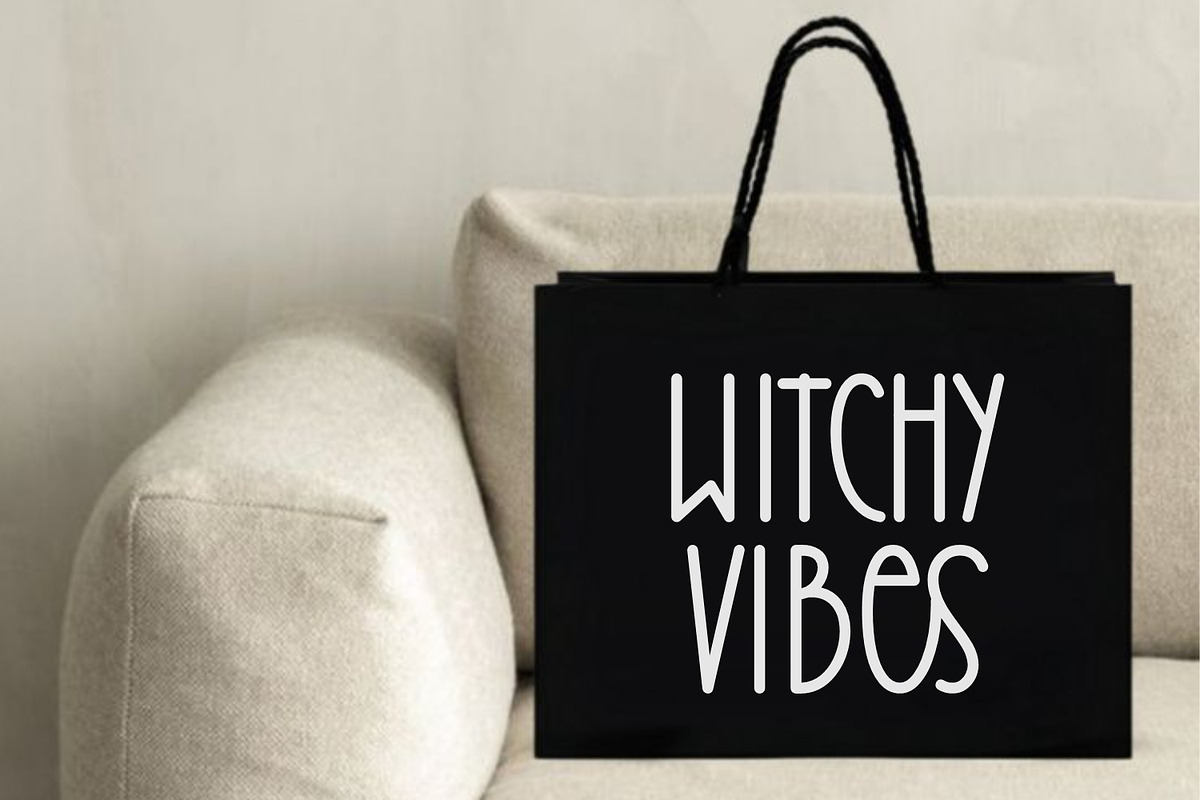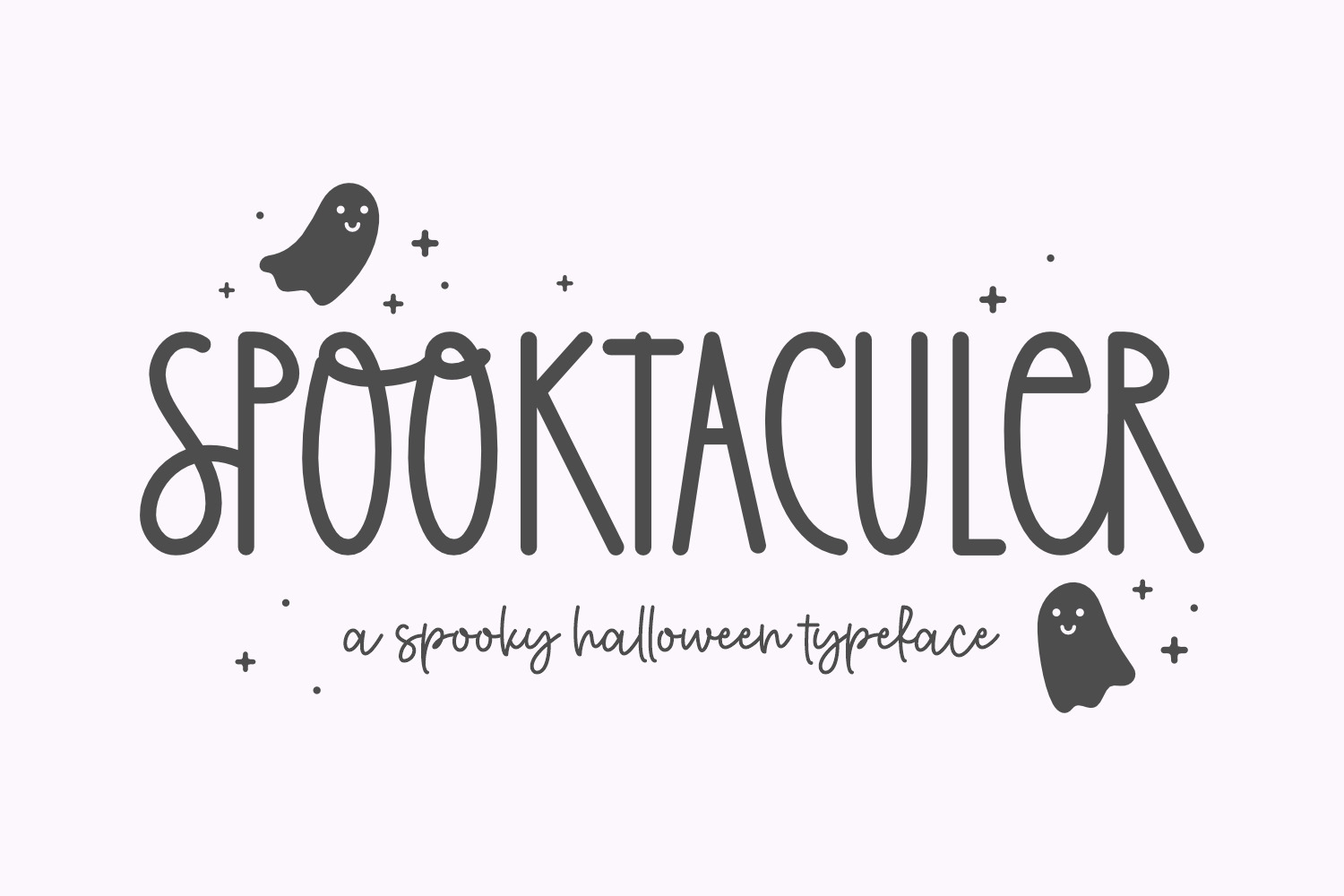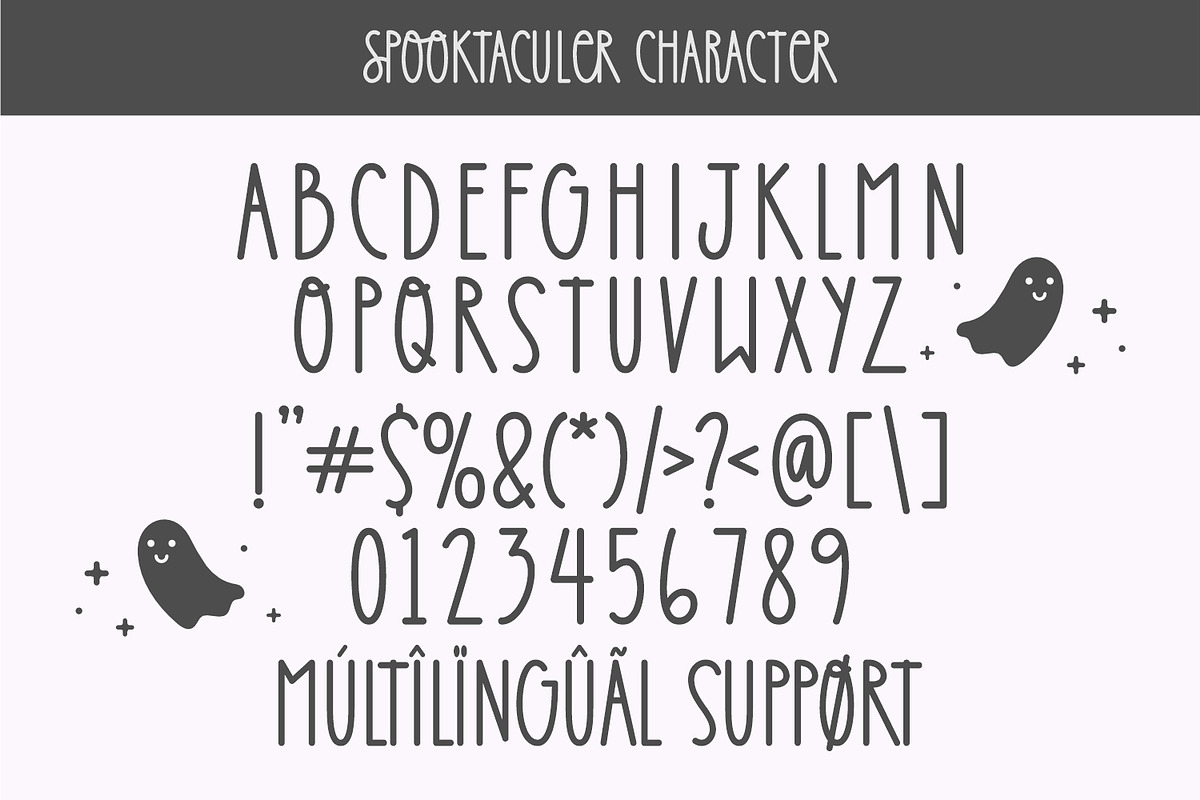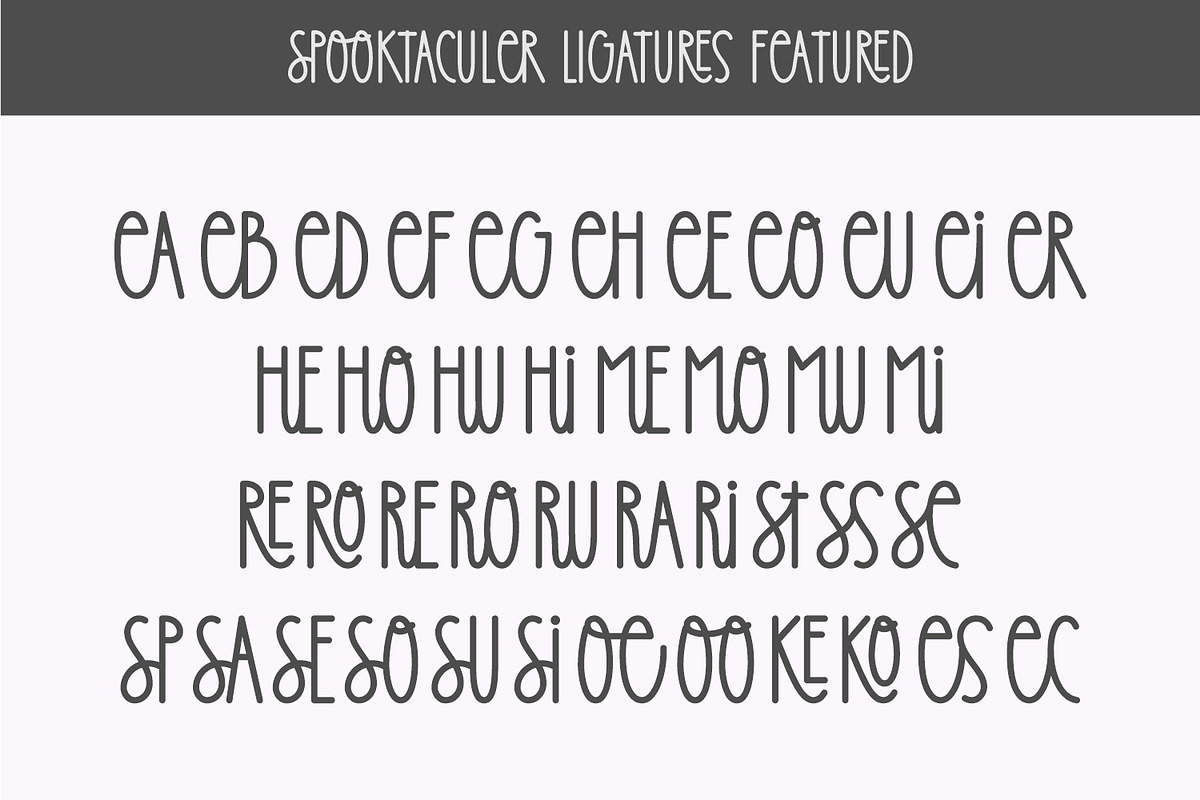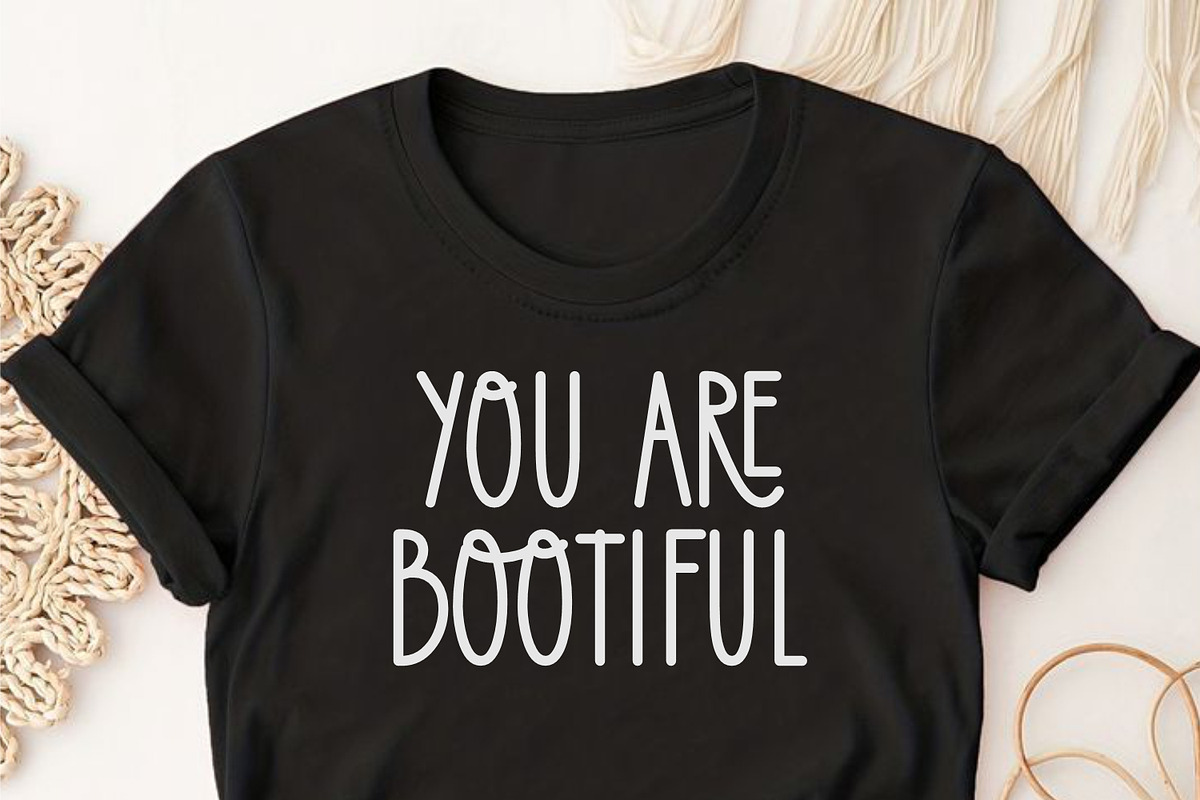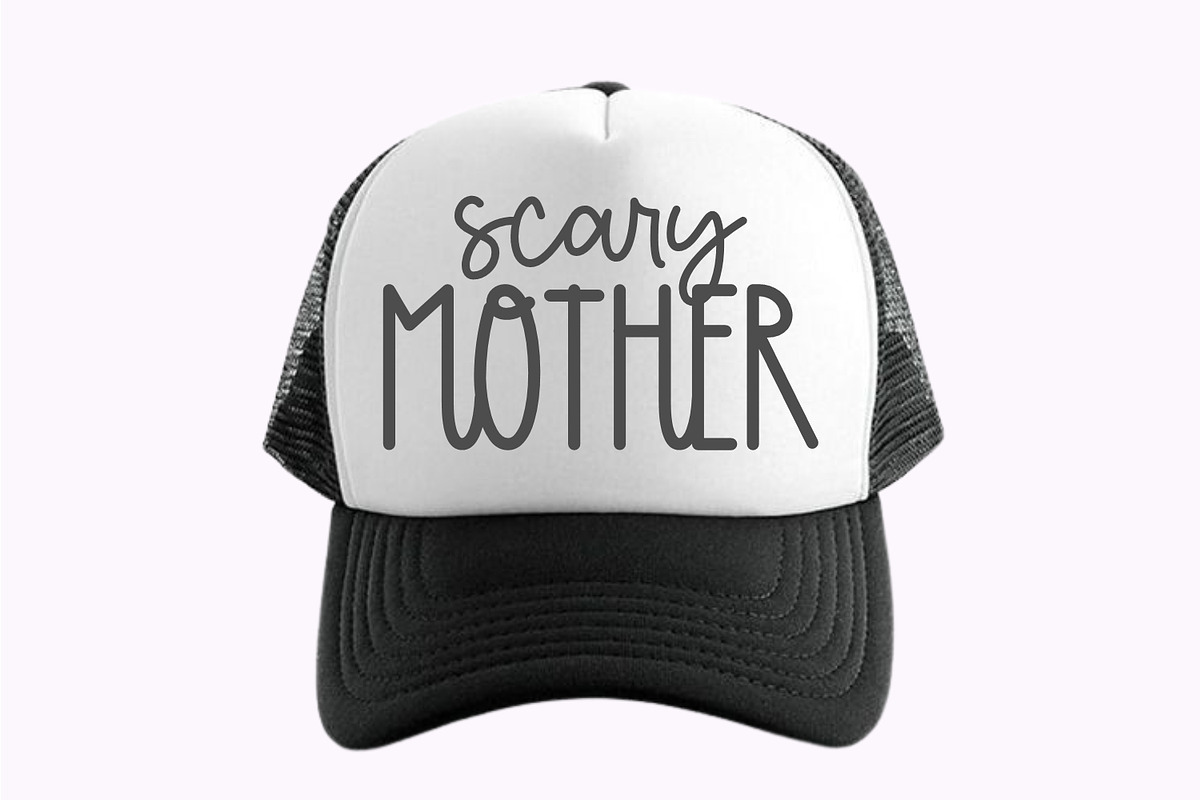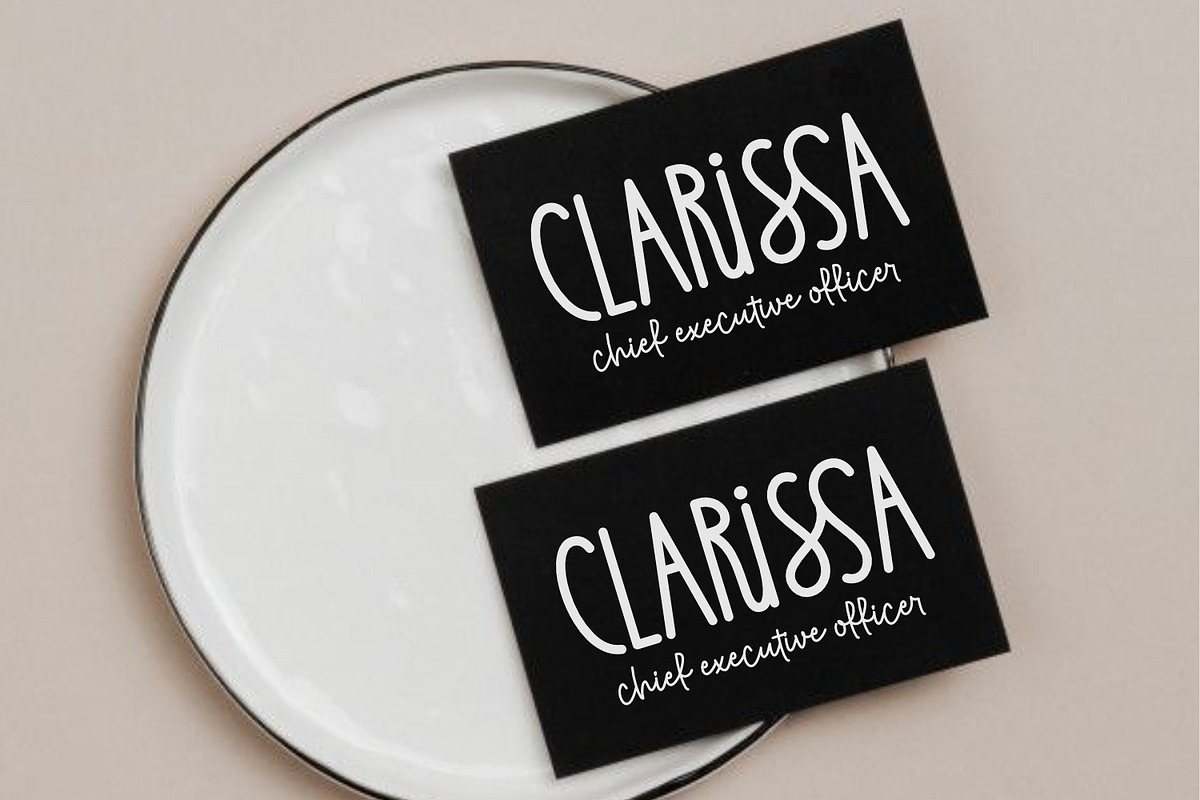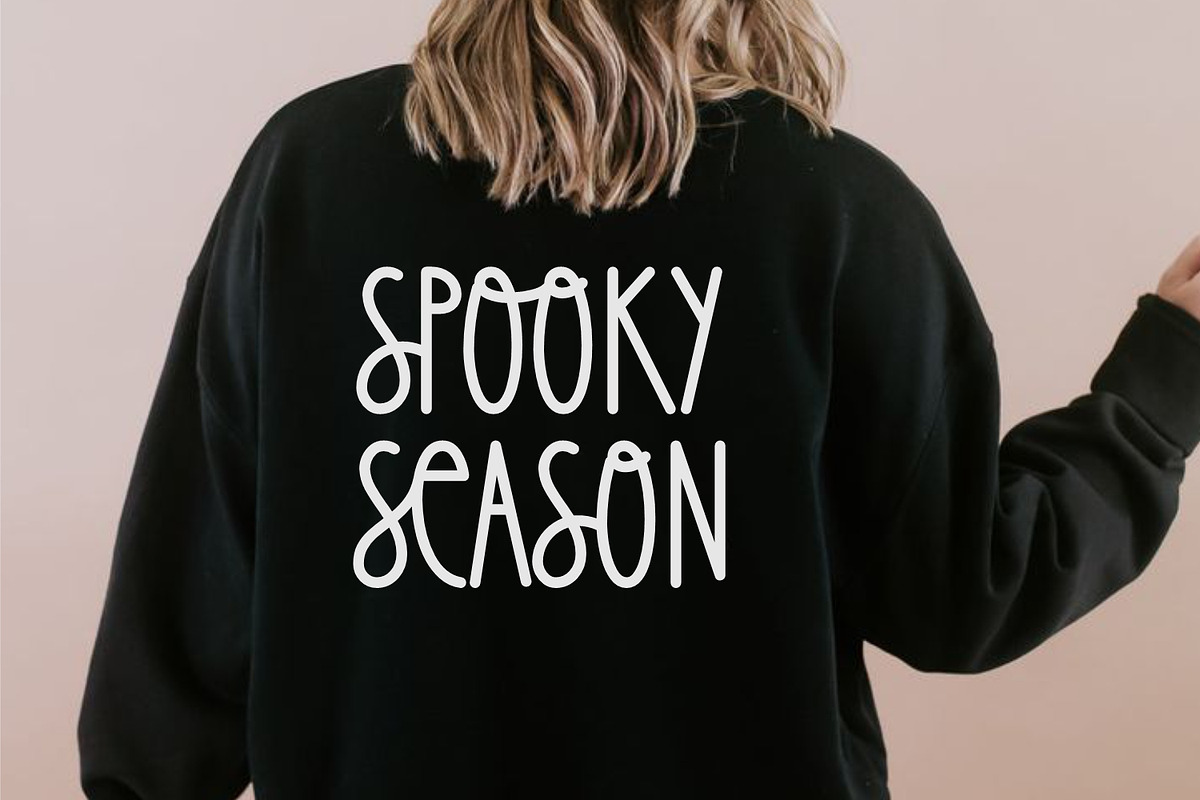
Spooktaculer - Halloween Font
Introducing Spooktaculer a simple monoline halloween font , a font that effortlessly captures the delights and thrills of Halloween. This typeface not only enhances every design but also evokes a sense of joy and cheer. Let your creativity run wild and make a statement whether on t-shirts, greeting cards, stickers, bags or any other Halloween-themed items. The simplicity of Spooktaculer makes it a breeze to use on both Cricut and Sublim machines, providing boundless opportunities for self-expression. It also offers a myriad of handy ligature features, paving the way for unique and captivating design possibilities.